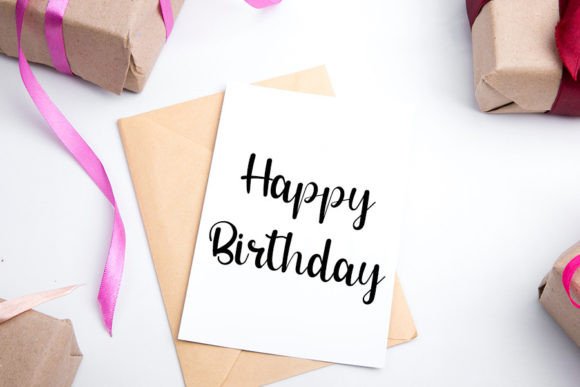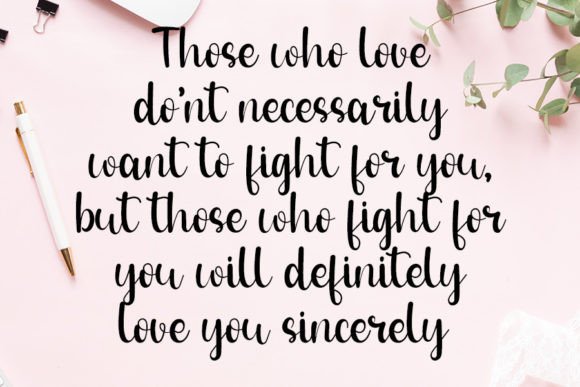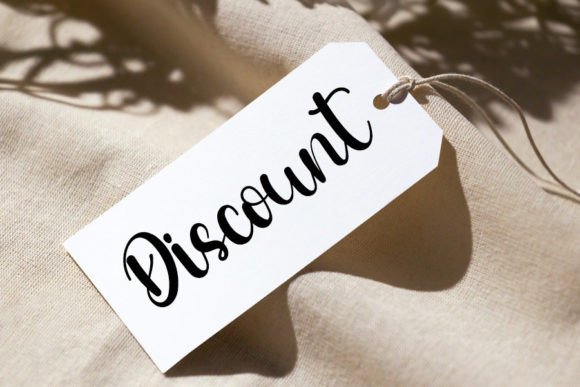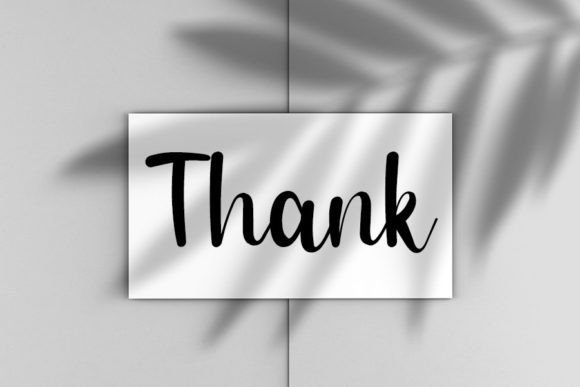
The Gorgeous Font: Elevate Your Designs with Elegance
Described as a neat and beautiful handwritten font with an elegant touch, Gorgeous is perfect for designers, crafters, and creative hobbyists looking to add a touch of sophistication to their projects. In this article, we’ll dive into what makes Gorgeous so special, its features, and how to use it to create spectacular designs.
- ✨ The elegant touch: Gorgeous has a timeless quality that’s hard to achieve with modern fonts.
- ✅ Incredibly distinct style: This font stands out from the crowd, making it perfect for projects that need a bit of personality.
- 💫 Versatility: Whether you’re working on a wedding invitation or a luxury brand identity, Gorgeous adapts seamlessly.
⚠️ While Gorgeous is incredibly versatile, it’s not the best choice for body text. Its elegant touch is better suited for headlines, titles, and short paragraphs. 🤔 Additionally, some users may find the font a bit too ornate for certain projects, so it’s essential to use it judiciously.
- Experiment with OpenType features, such as glyphs and stylistic alternates, to add more personality to your text.
The Designer Inspiration Behind Gorgeous
While the true story behind Gorgeous remains a mystery, it’s clear that the designer was inspired by the elegance of handwritten scripts. With a focus on creating a timeless, sophisticated font, the designer poured their heart and soul into crafting a truly unique typeface.
| Font Name | Gorgeous Font |
| Author | Kongsi.Co |
Q: What makes Gorgeous so special?
A: Gorgeous is special because of its incredibly distinct and timeless style, perfect for projects that need a bit of elegance.
Q: Can I use Gorgeous for body text?
A: While Gorgeous is a beautiful font, it’s better suited for headlines, titles, and short paragraphs. For body text, you may want to choose a more legible font.